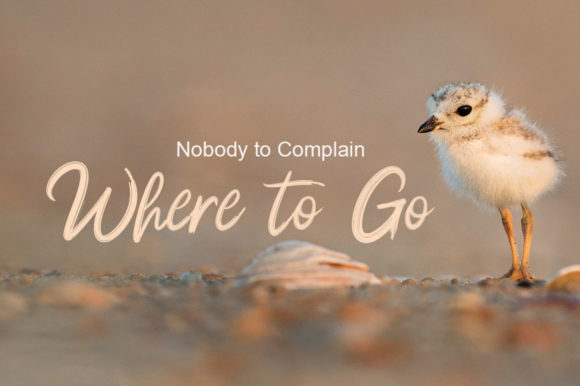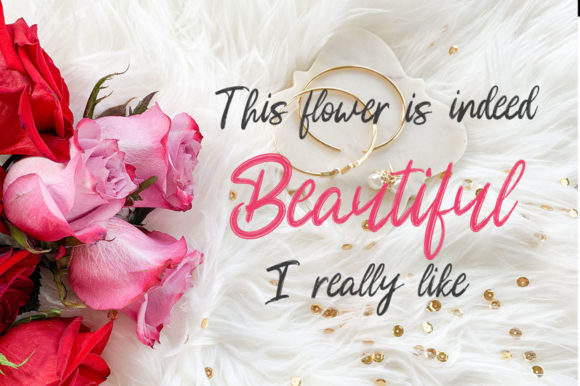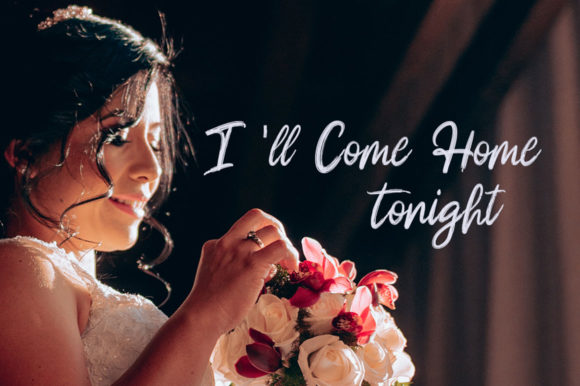
About Mahdani Font
Mahdani is a unique and beautiful brushed handwritten font. Dainty and joyful, this font will be ideal for writing wedding invitations, cards or any other design that may need a romantic, personalized touch!